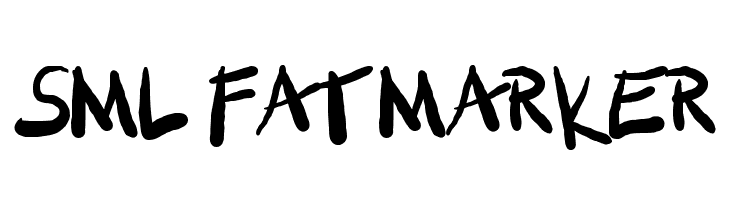
A classic serif font with elegant, elongated strokes and a refined appearance.
A decorative font with abstract, symbolic glyphs and artistic design.
A bold, textured handwritten font with a playful and artistic style.
A playful, hand-drawn style with rounded edges and consistent stroke width.
A vintage, monospaced typewriter-style font with a rounded, mechanical appearance.
A casual, handwritten script font with a friendly and fluid style.
A dynamic, expressive handwritten font with fluid strokes and artistic flair.